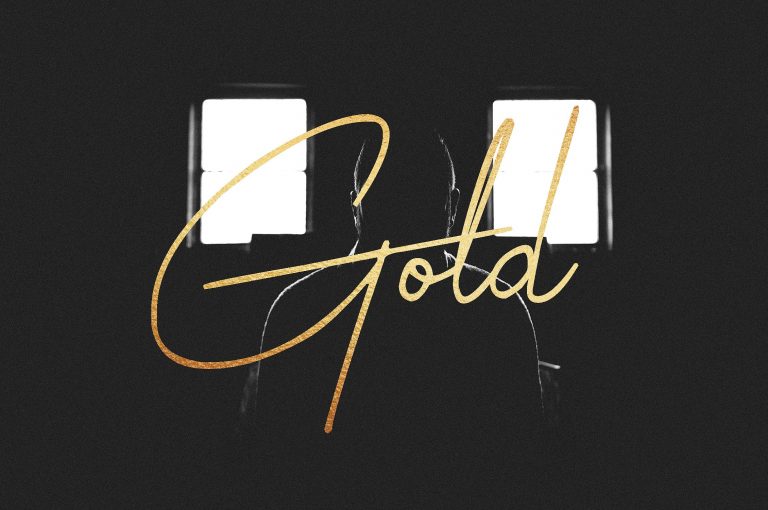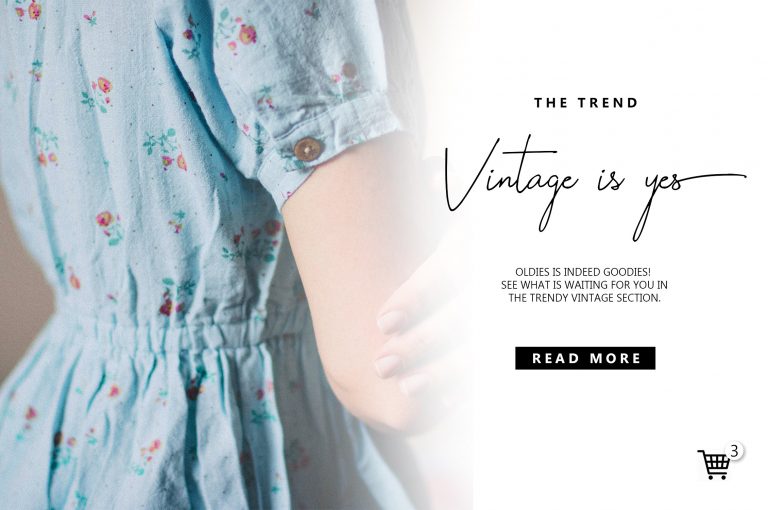
Harmony Signature Font – Free Demo
A modern signature font. Give your designs an authentic signature handcrafted feel. Introducing Harmony Font! It is designed and shared by Premiere Graphics. Harmony font is a handy script font for your blogs, photography, murals, calligraphy, graphic design, weddings, and many more. With its signature style, this font is ought to give you the satisfaction you are looking for on your project.